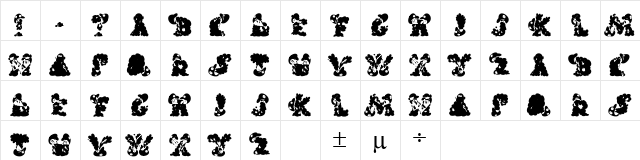
Kilroys Regular
Design Context for Kilroys Typeface
Kilroys is a composed and adaptable typeface that performs quietly and consistently across a wide range of design contexts.